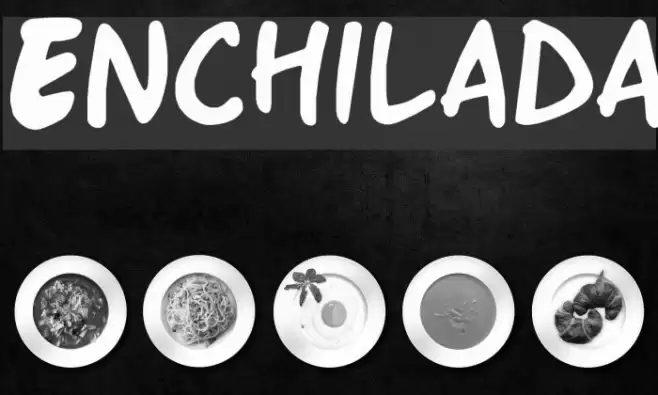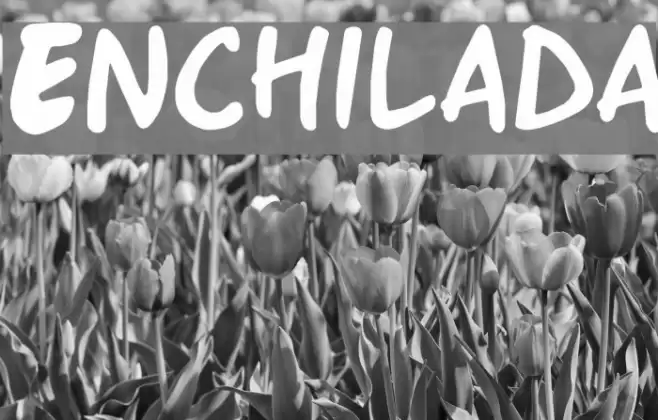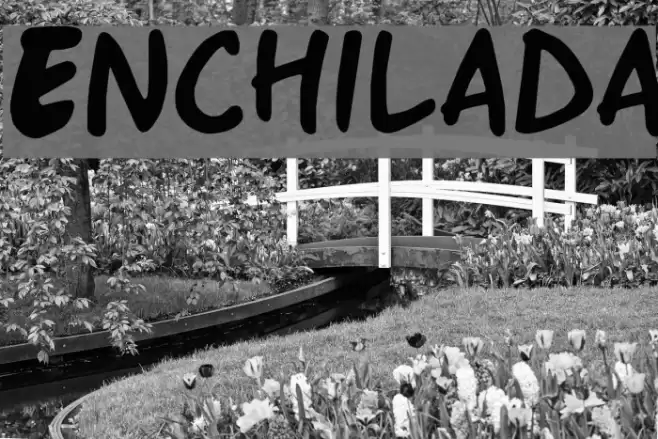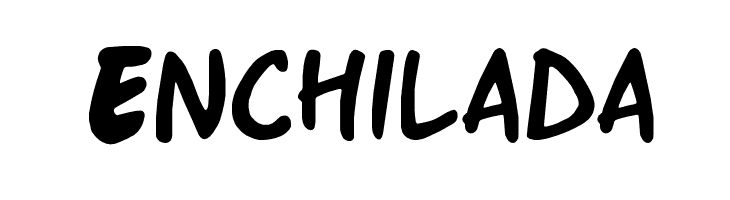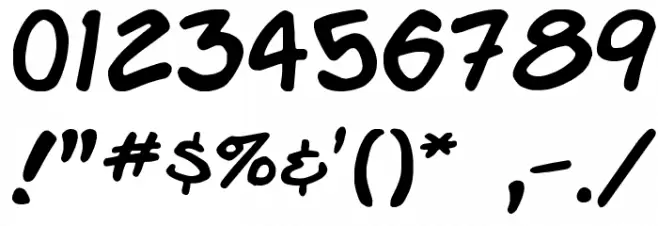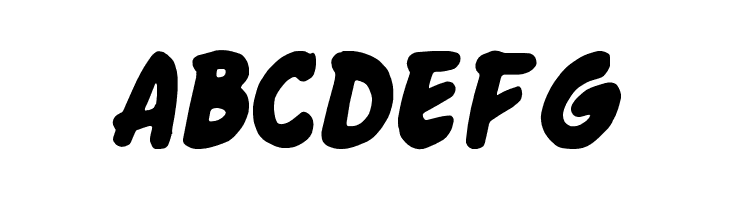
Enchilada Font
Enchilada Description
This font features a bold, playful style with a handwritten appearance. The characters are rounded and slightly irregular, giving it a casual and friendly look. The uppercase and lowercase letters maintain a consistent flow, while the numbers and special characters complement the overall design. The strokes are thick and uniform, contributing to a strong visual presence. This font is versatile, suitable for projects that require a touch of personality and informality. Its unique style makes it stand out, making it ideal for creative and artistic applications.
A bold, playful handwritten font with rounded, irregular characters from Handwritten fonts.
- Proposed Projects: Ideal for greeting cards, posters, children's books, and branding that requires a friendly and approachable feel.
- Overall Style: Playful, Casual